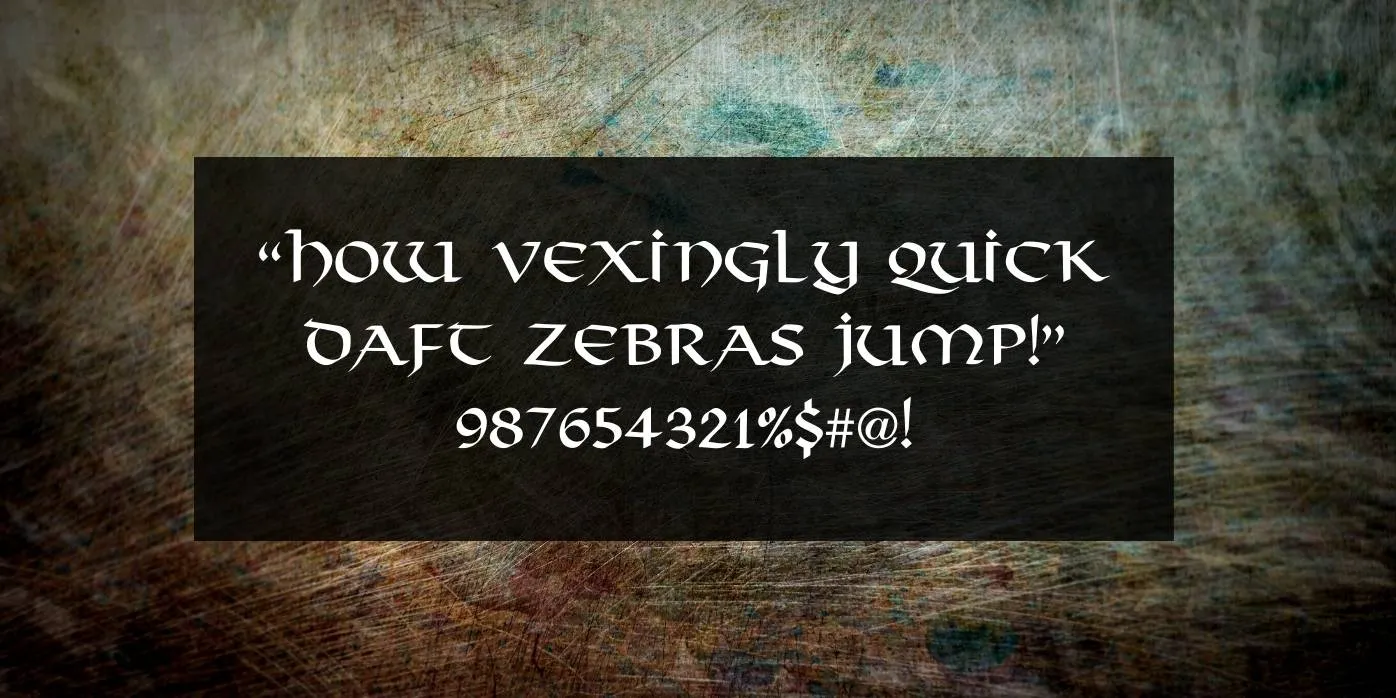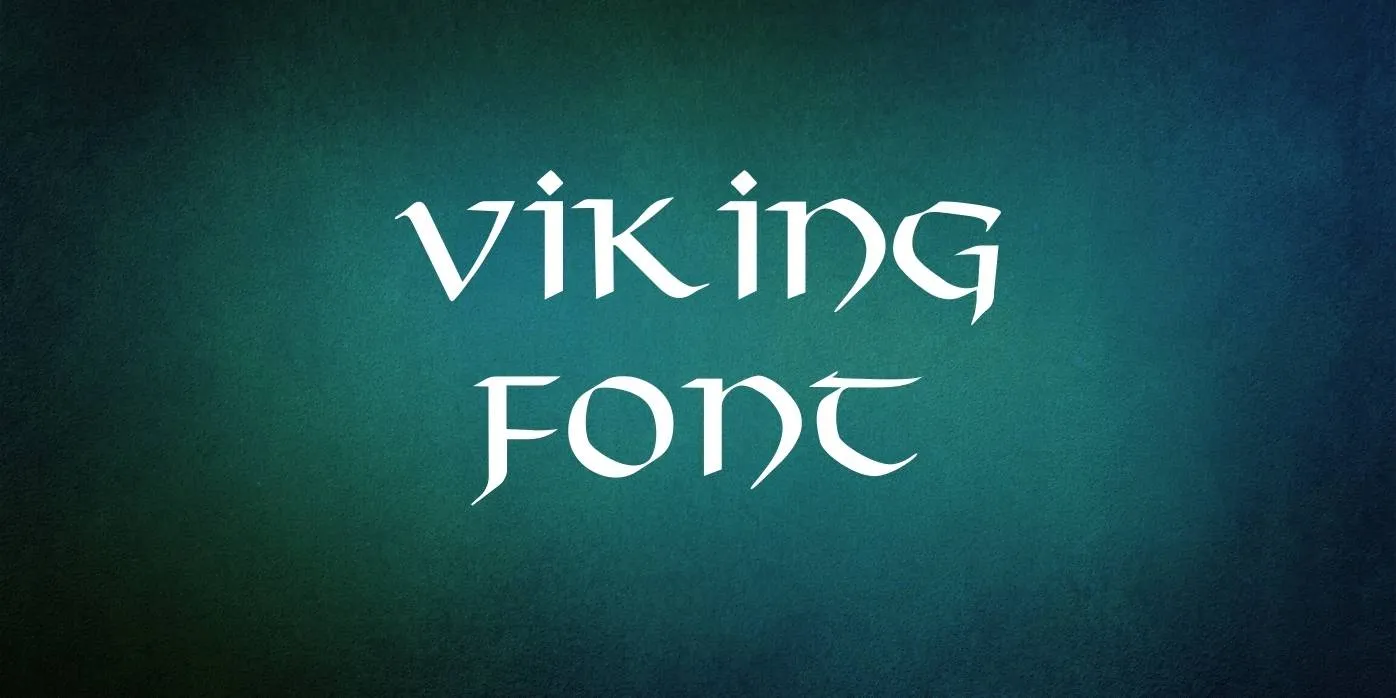
Viking Font
Here, we introducing to you a popular typeface known as Viking Font. This typeface was designed by DeNada Industries and belongs to the category of the Gothic font family. This typeface is available in four special styles which include Regular, Bold, Thin, and Italic. It is very famous because of its support for different international languages.  This font is very versatile and can be used for both digital and print projects.